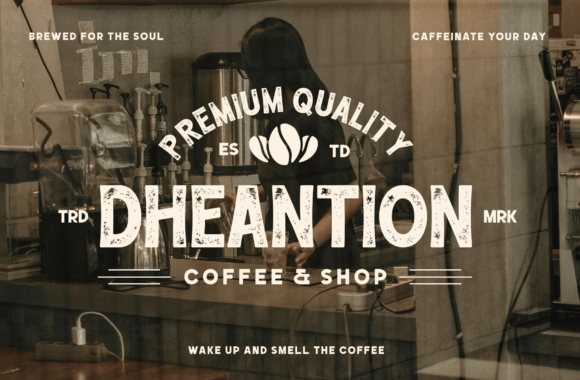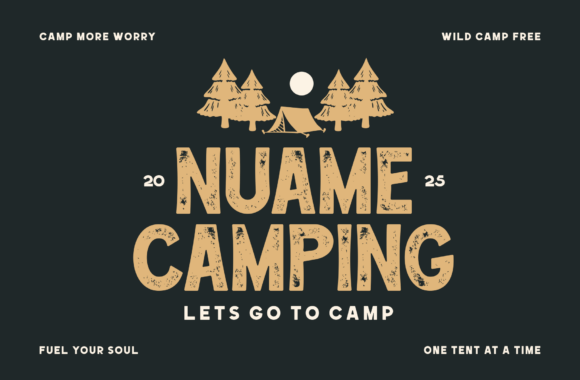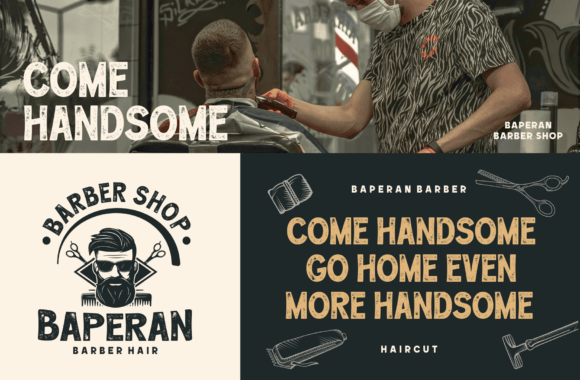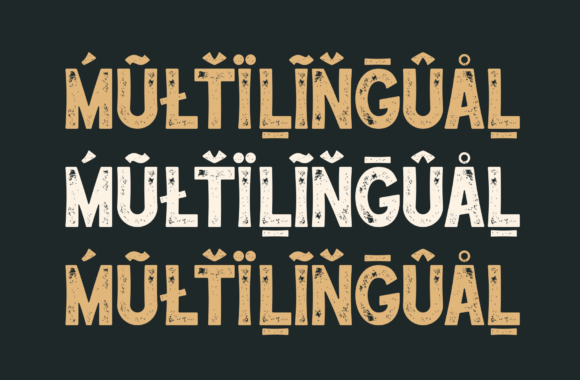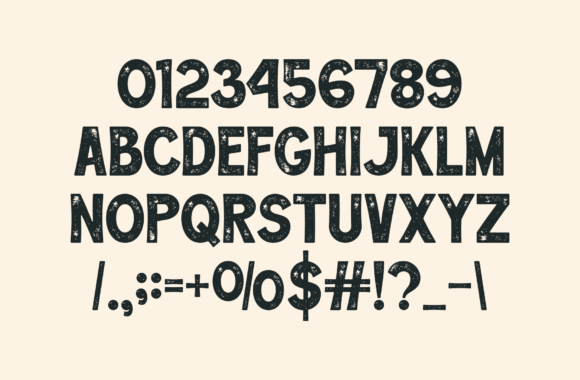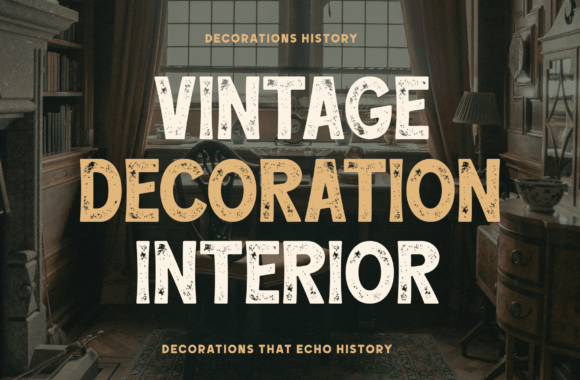
Introduction to Kianubi Font
Introducing our new product **Kianubi** – Vintage Typeface **Kianubi** – is a very flexible choice and can be used in a variety of design contexts.
Introducing our new product **Kianubi** – Vintage Typeface **Kianubi** – is a very flexible choice and can be used in a variety of design contexts. Its ability to provide a clean, professional, contem
Key Features of Kianubi Font
Why Choose Kianubi Font?
Kianubi Font offers exceptional quality and versatility, making it a valuable addition to your design toolkit. Whether you’re creating for personal projects or commercial use, Kianubi Font delivers professional results.